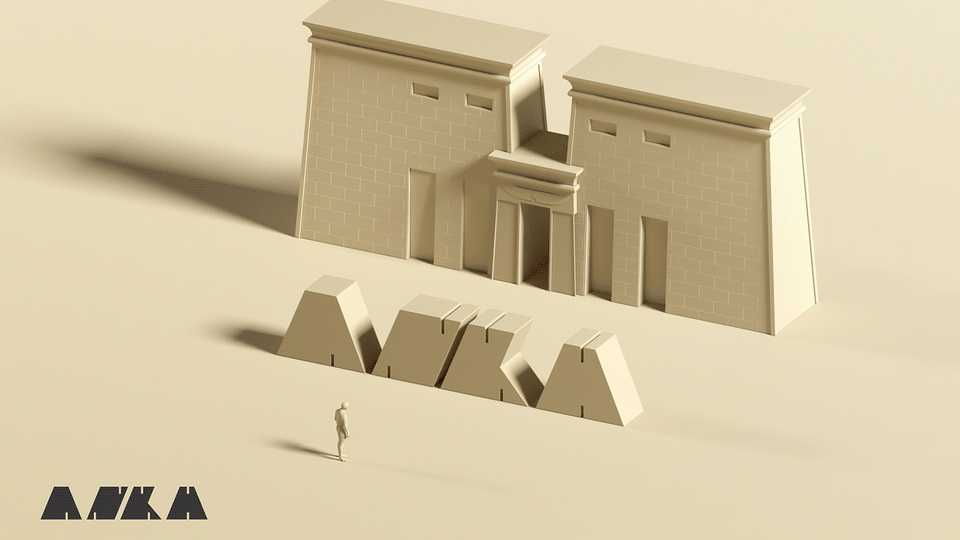
Download ANKH font, a bold typeface in two styles inspired by the geometry of ancient Egyptian architecture. ANKH fonts are perfect for: logo designs, posters, flyers, advertising, packaging designs and so much more.